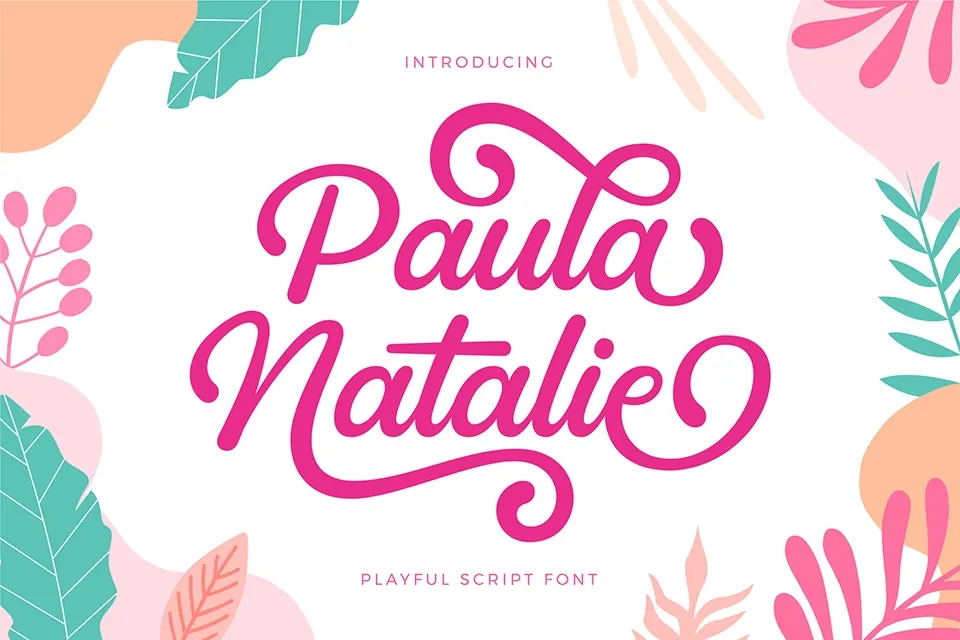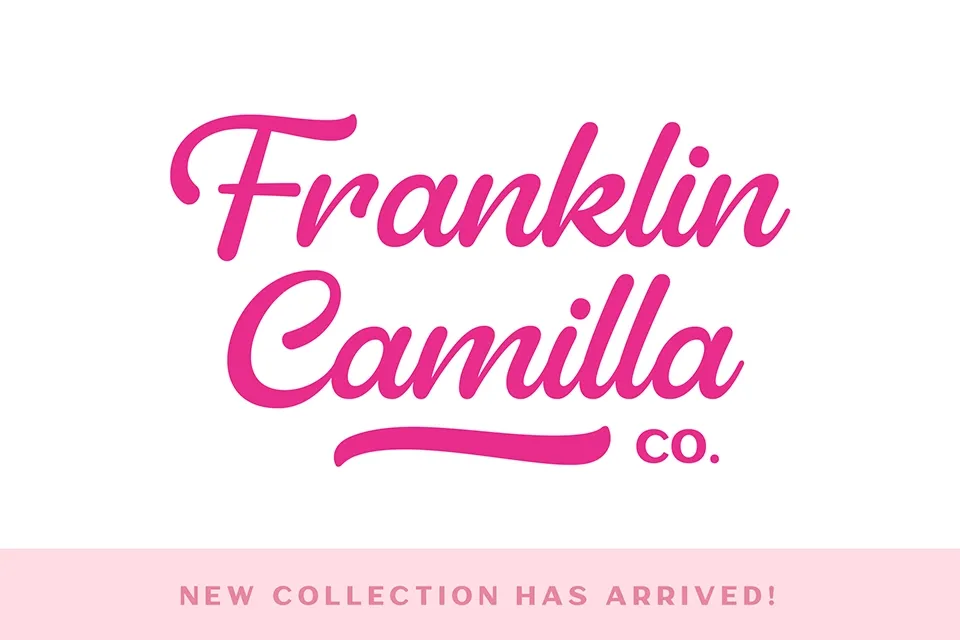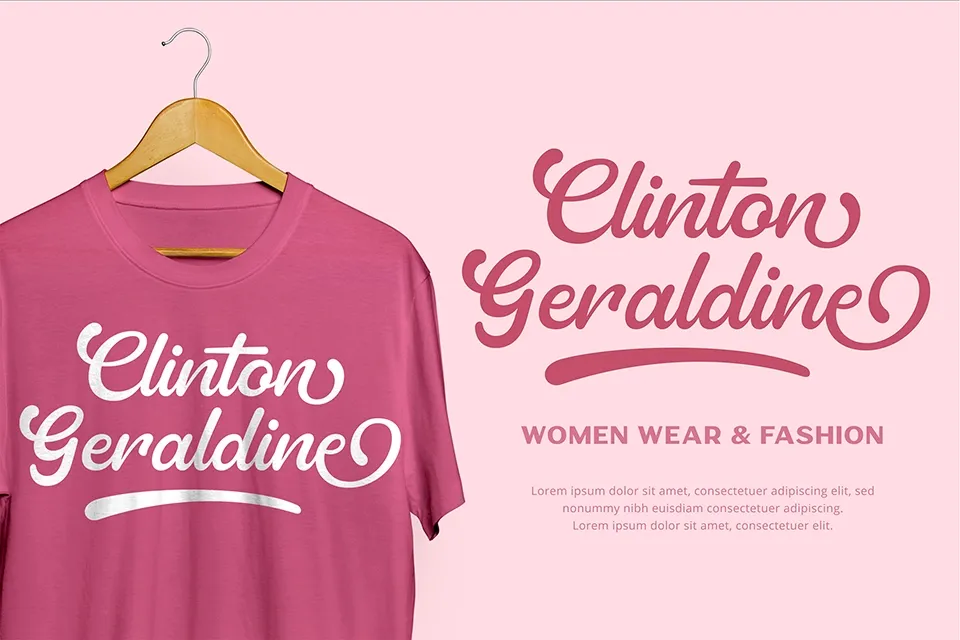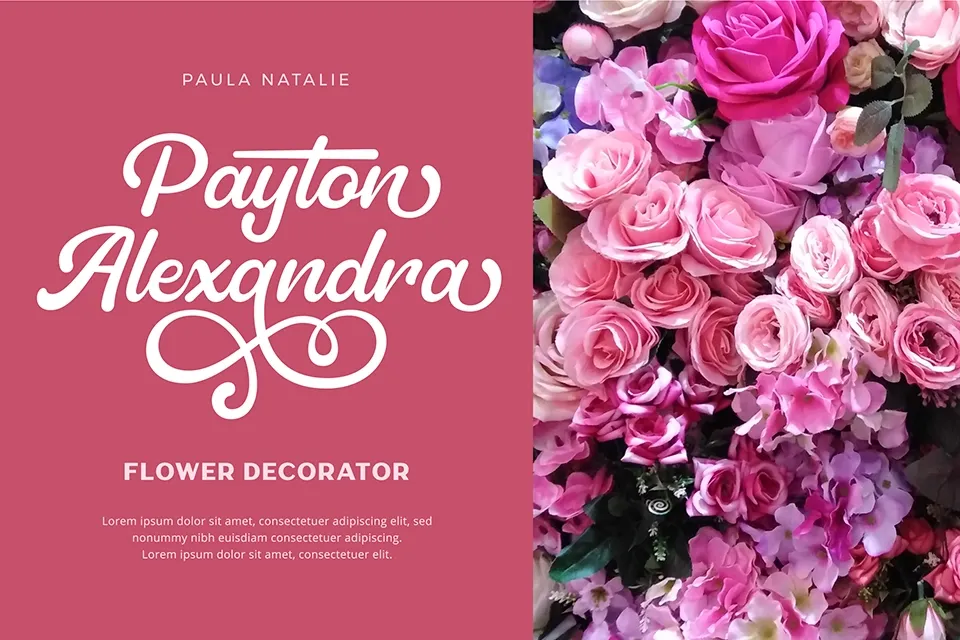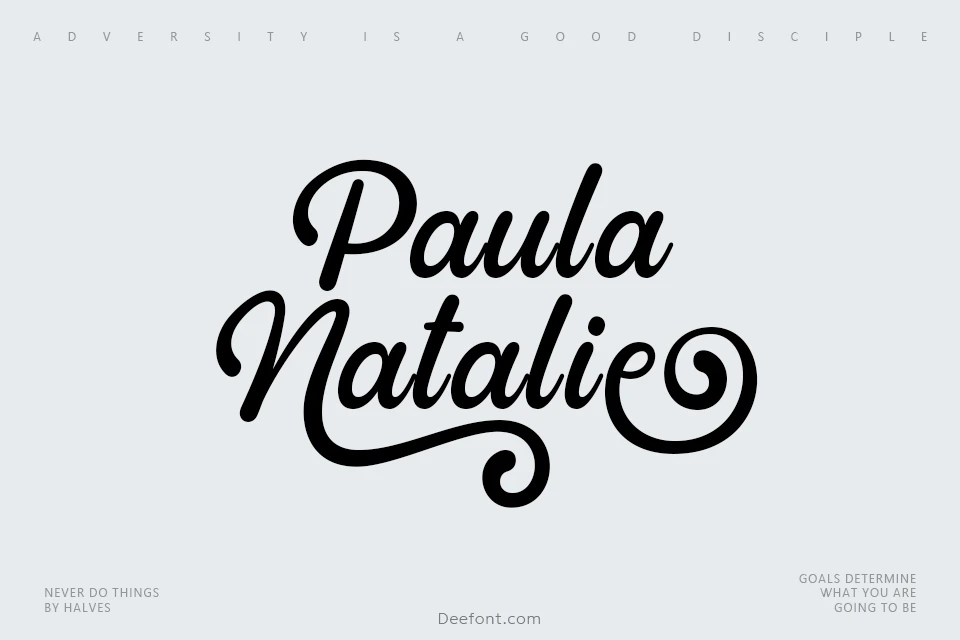
Paula Natalie Font
Paula Natalie Font, designed by Akhmad Reza Fauzi of Grezline Studio, is a cute and playful script typeface with a whimsical calligraphy style. Created to add a cheerful touch to headlines and logotypes, its handwritten appearance exudes love and positivity. This versatile font works well for a wide range of projects, including posters, quotes, product packaging, merchandise, and social media graphics. It features alternates, ligatures, and multilingual support. Paula Natalie is available free for personal use, but a commercial license is required for business purposes.